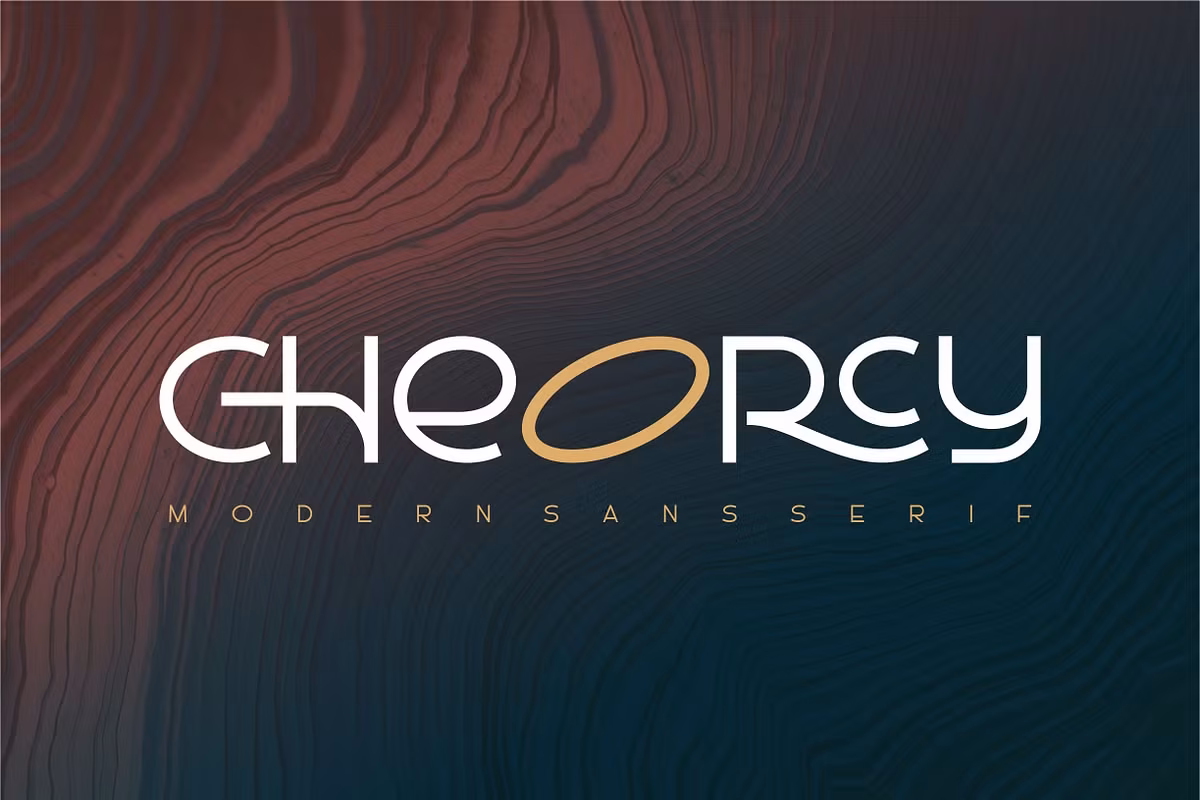
Cheorcy | Modern Sans Font Free Download is a sleek and contemporary typeface designed to bring clarity and sophistication to your designs. With its clean lines, geometric shapes, and balanced proportions, this modern sans-serif font is perfect for logos, websites, branding, and editorial layouts. Its versatility makes it ideal for both professional and creative projects, ensuring a timeless, polished look. Whether you're designing for a modern tech company, creating stylish promotional materials, or working on a minimalist design project, Cheorcy | Modern Sans Free Download allows you to experiment with its refined style in personal projects before purchasing a commercial license. Elevate your designs with the simplicity and elegance of this modern sans-serif font.